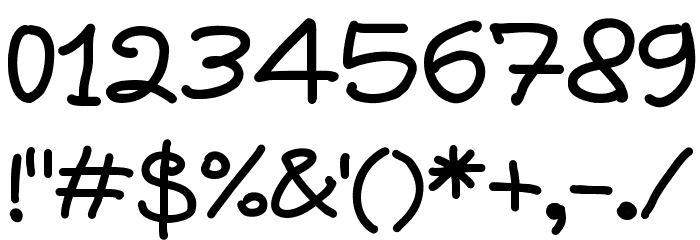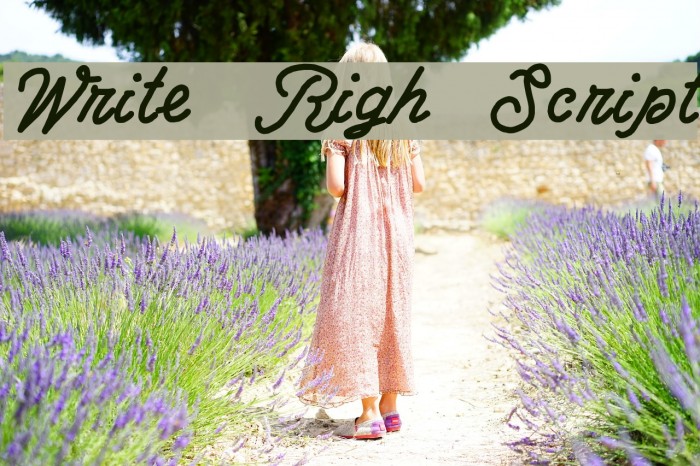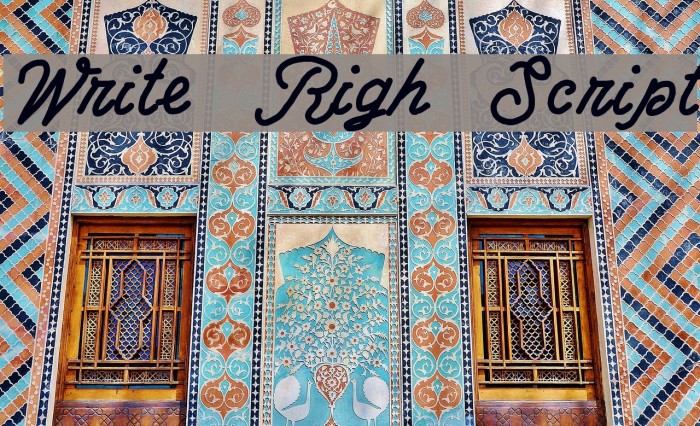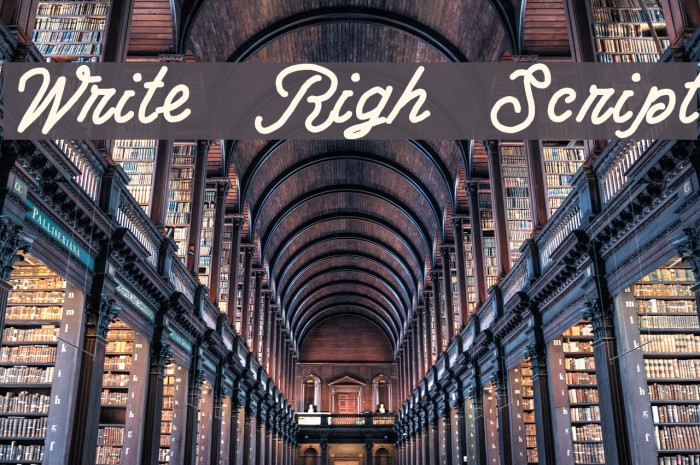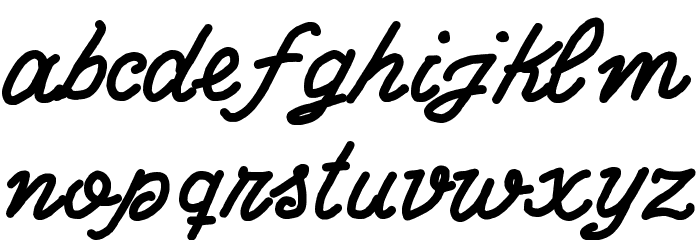
Write Righ Script Font
Write Righ Script Description
This font features a flowing, cursive style that mimics elegant handwriting. The uppercase letters are slightly more ornate, with gentle loops and curves that add a touch of sophistication. The lowercase letters maintain a consistent flow, making them easy to read while retaining a stylish flair. Numbers and special characters are designed to match the overall script style, ensuring a cohesive look across all text. The font's smooth lines and balanced proportions make it suitable for a variety of creative applications.
A cursive script font with elegant, flowing lines and balanced proportions from Handwritten fonts.
- Proposed Projects: Ideal for wedding invitations, greeting cards, personal branding, and elegant logo designs.
- Overall Style: Elegant
- Use Case: Logos, Invitations, Greeting Cards